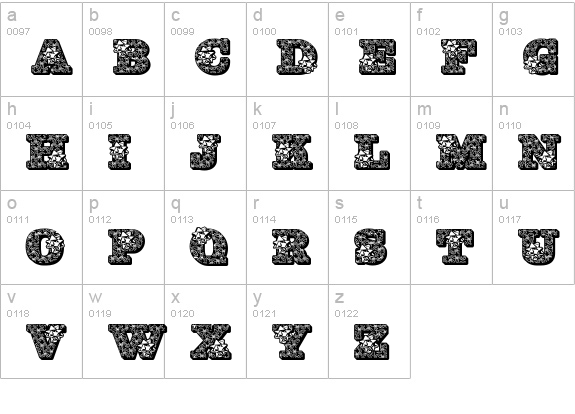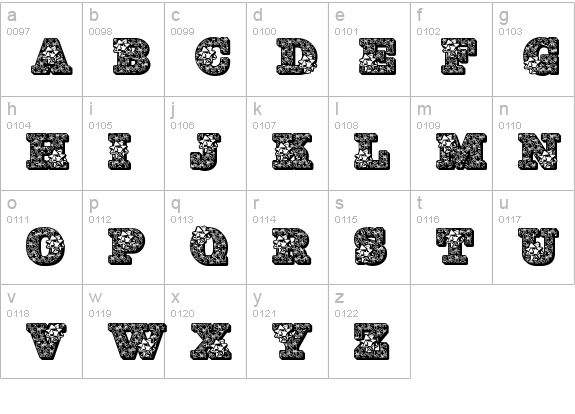
JFHollyBows Font Details
JFHollyBows font is a delightful and whimsical typeface that is sure to add a touch of playfulness to any design project. With its charmingly rounded letters and intricate bow-like details, this font exudes a sense of joy and happiness. Perfect for a wide range of creative endeavors, JFHollyBows font is versatile and can be used in various contexts, from invitations and greeting cards to branding materials and social media graphics. Its unique design makes it stand out and captivate the viewer's attention, making it an excellent choice for those looking to make a memorable impression. One of the best things about JFHollyBows font is that it is freely available to download at FontsMarket.com. This means that you can easily access and use this beautiful font without any restrictions or limitations. Whether you are a professional designer or simply someone who wants to add a touch of fun to their personal projects, JFHollyBows font is the perfect choice. So why wait? Download JFHollyBows font today and let your creativity soar. With its free availability and charming design, this font is a must-have for anyone looking to add a touch of whimsy and joy to their designs. Get started and let JFHollyBows font bring your imagination to life.